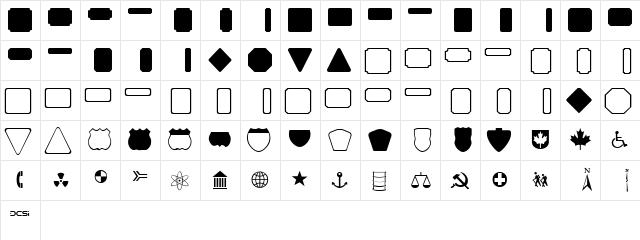
FFX Signs and Plaques Normal
Design Context for FFX Signs and Plaques Typeface
FFX Signs and Plaques is a composed and adaptable typeface that performs quietly and consistently across a wide range of design contexts.